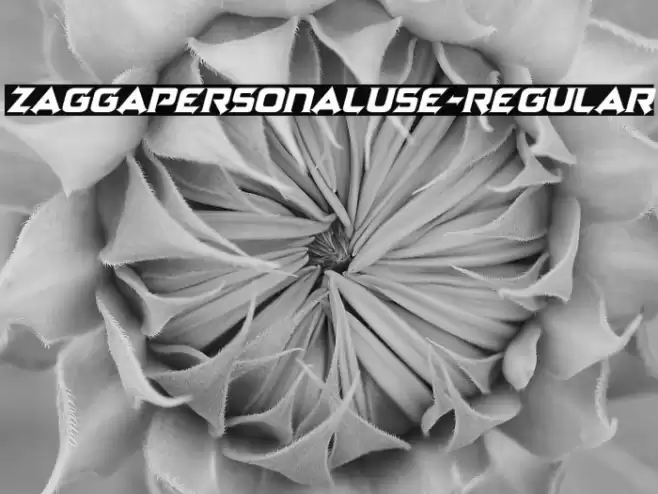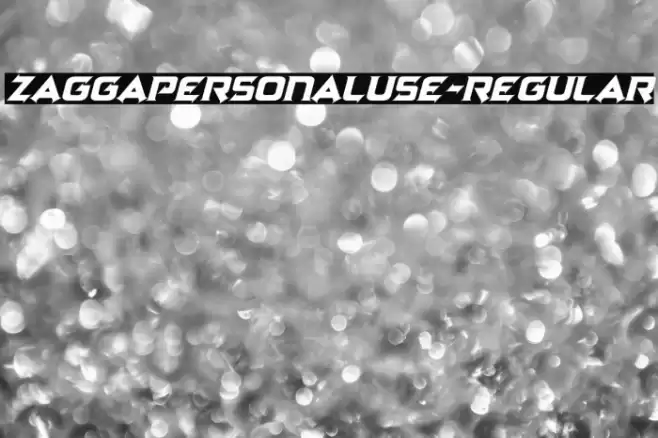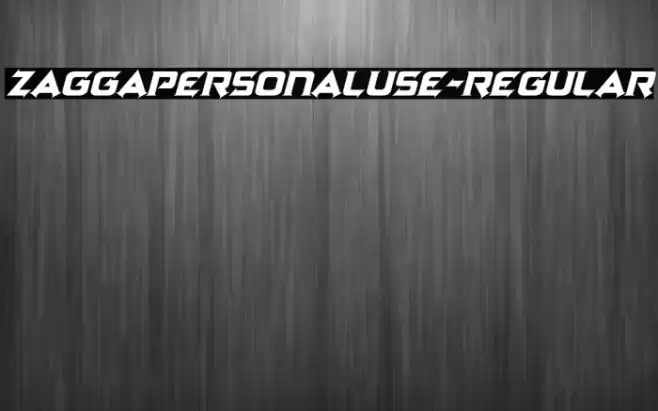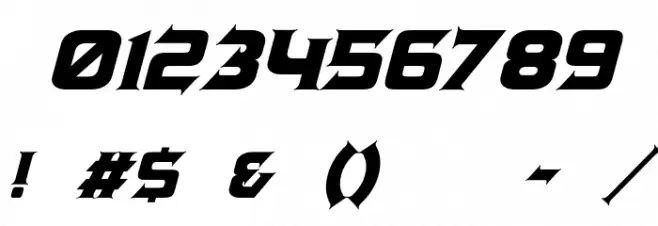
ZaggaPersonalUse-Regular Font
This font features a bold and dynamic design with sharp, angular edges and a forward-leaning stance, giving it a sense of motion and energy. The characters are tightly spaced, enhancing the compact and impactful appearance. The uppercase and lowercase letters maintain a consistent style, with a strong emphasis on geometric shapes and pointed terminals. Numbers and special characters follow the same bold and aggressive aesthetic, making the font suitable for attention-grabbing designs. The overall look is modern and edgy, ideal for projects that require a strong visual impact.
A bold, angular font with a dynamic and modern style from Regular fonts.
- Proposed Projects: Ideal for sports branding, action movie posters, video game titles, and edgy graphic designs.
- Character Spacing: Tight